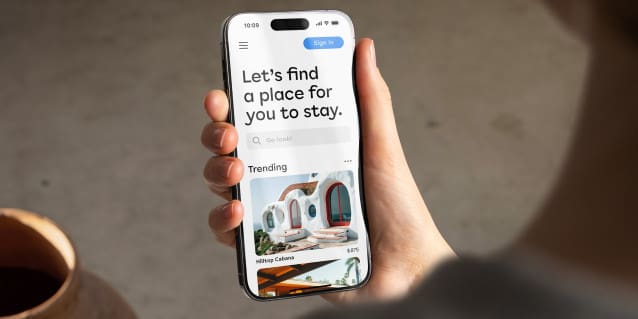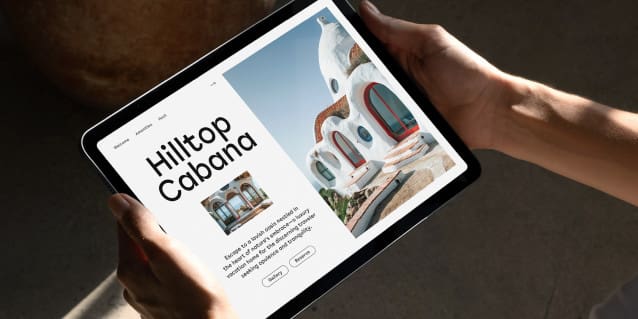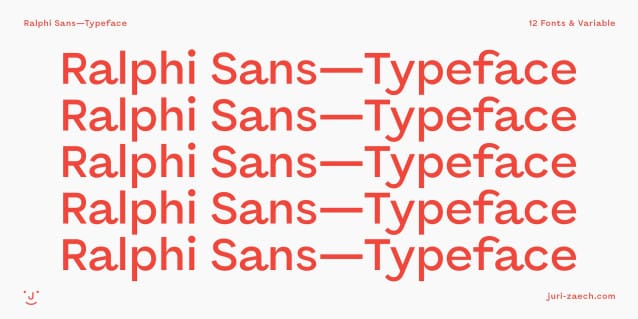
Ralphi Sans Font Family
Ralphi Sans Font Family is a friendly geometric typeface for use in interface design. It sets itself apart from other geometric typefaces with a design that introduces warmth and character to the otherwise austere genre. With Ralphi Sans designers can introduce a jovial note to their sleek, pixel perfect and gorgeous screen designs. The client’s business might be serious, but it’s still a welcoming startup, a useful app with a sociable tone, or a personable brand that has much to give. Generously wide and with a handful of carefully crafted characteristics Ralphi Sans is suited for screen design and branding projects that want to straddle a clean look with some personality.